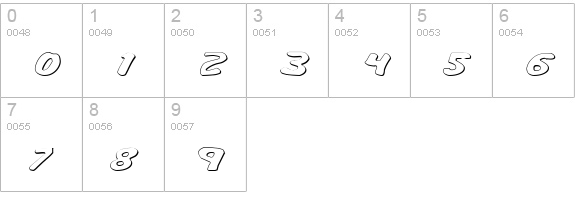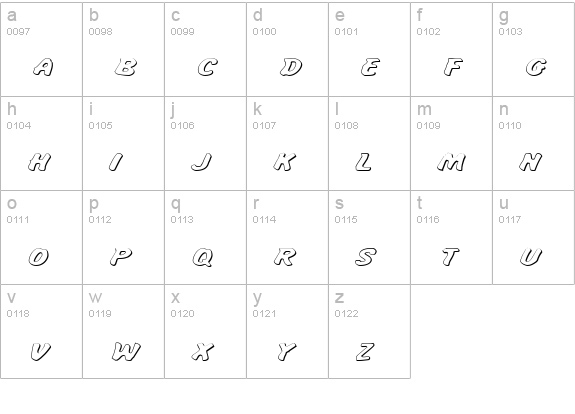
Miss Amanda Shadow ItalExp Font Details
Miss Amanda Shadow ItalExp font is a stunning display font that exudes elegance and sophistication. With its unique italicized shadow effect, this font is perfect for adding a touch of drama to your designs. Whether you're working on invitations, posters, or branding materials, Miss Amanda Shadow ItalExp font will make your text stand out in style. And the best part? This beautiful font is available for free download at FontsMarket.com. So, go ahead and elevate your design projects with the captivating Miss Amanda Shadow ItalExp font without spending a dime. Download it today and unleash your creativity!